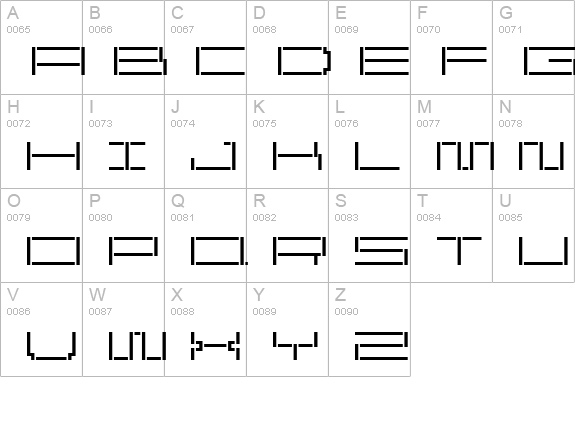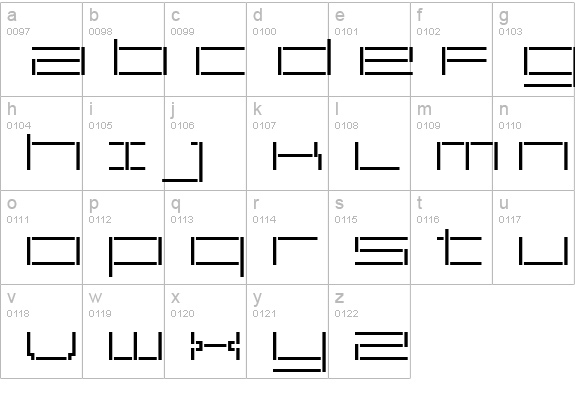
ReversionBroken Light Font Details
ReversionBroken Light is a refined, elegant variant in the ReversionBroken typeface family \xE2\x80\x94 well suited to elegant body text, refined sub-headings, and luxury branding.
ReversionBroken Light font is a stunning display font that exudes a sense of elegance and sophistication. Its unique and intricate design elements make it a perfect choice for adding a touch of class to any project. The broken light effect adds a hint of mystery, making this font truly captivating. With its clean lines and beautifully crafted letterforms, ReversionBroken Light font is versatile and can be used in a variety of contexts. Whether you're designing a logo, creating stunning headlines, or crafting eye-catching posters, this font will effortlessly elevate your work to new heights. One of the best features of ReversionBroken Light font is that it is freely available to download at FontsMarket.com. This means that you can easily access this amazing font without any cost. The creators of ReversionBroken Light font believe that creativity should be accessible to everyone, and by offering it for free, they have made it possible for anyone to enhance their designs with this exceptional font. Don't miss out on the opportunity to add a touch of elegance and sophistication to your design projects. Download ReversionBroken Light font today from FontsMarket.com and let your creativity shine.